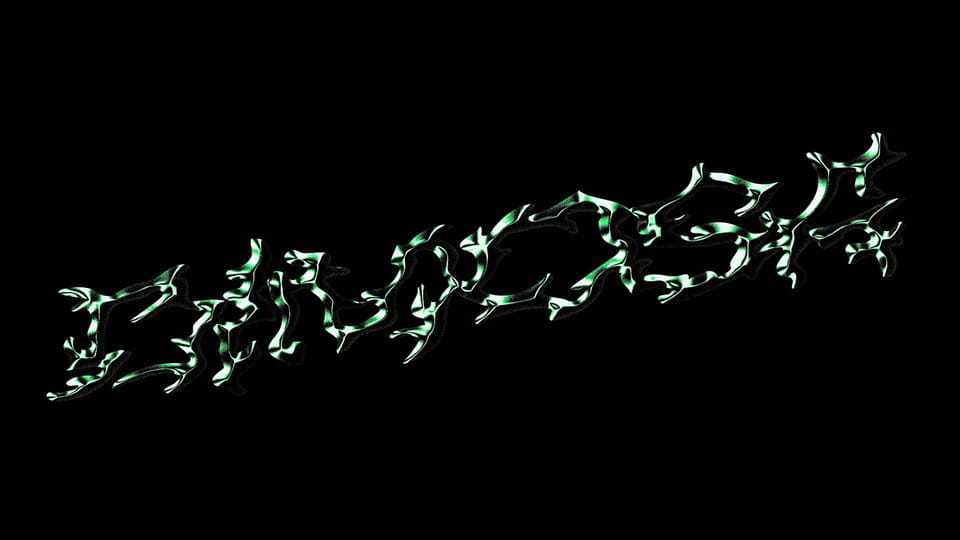
Download Dimosa font, an experimental display typeface created during the 36 Days of Type challenge, where each letter became an exploration of form, texture, and motion.